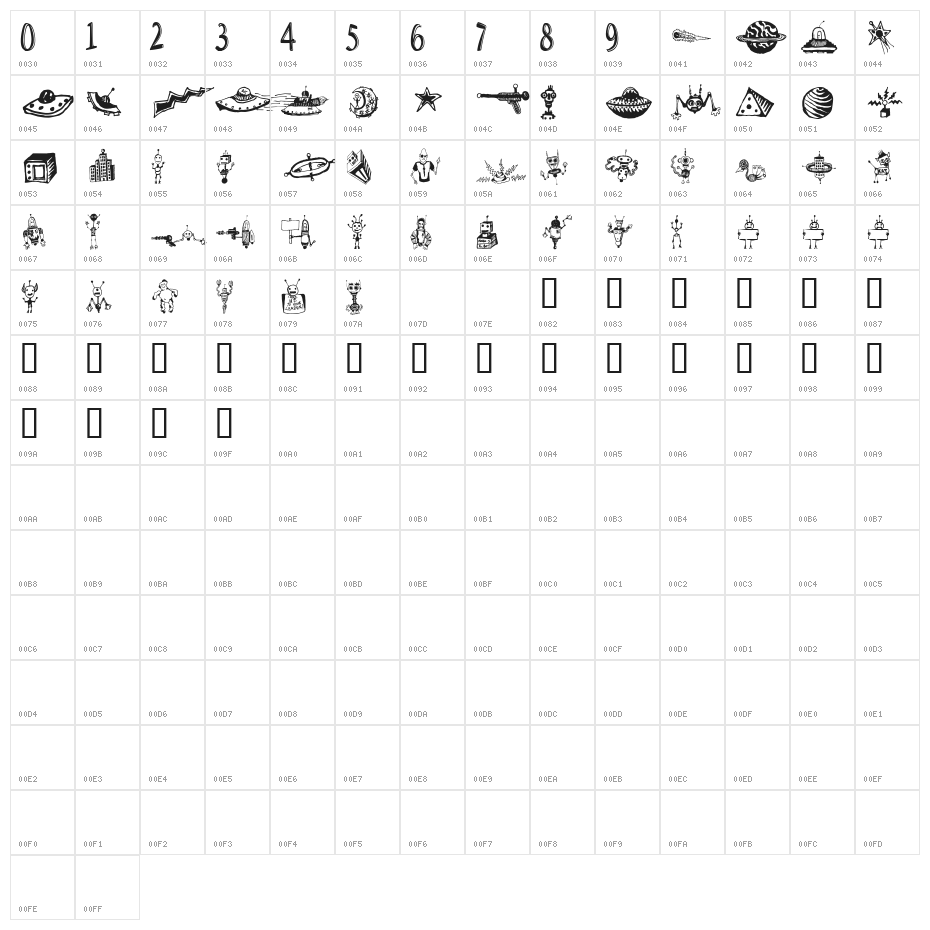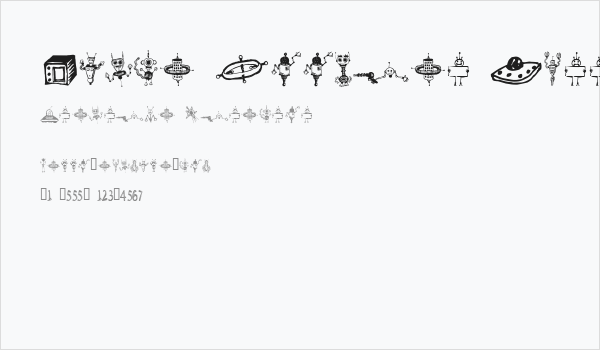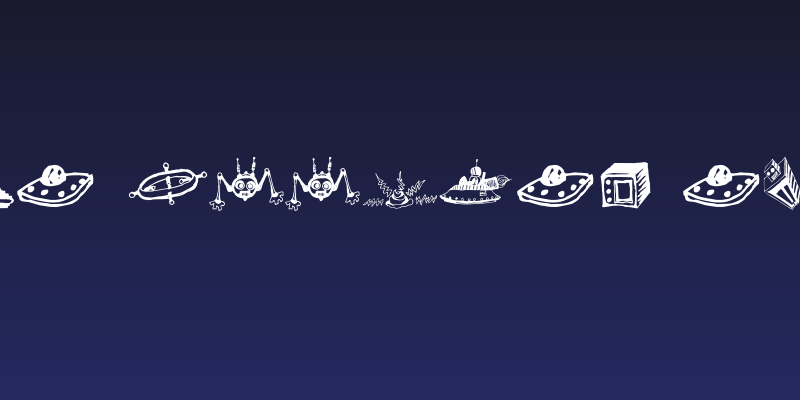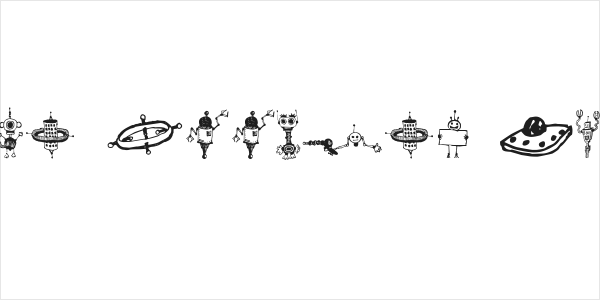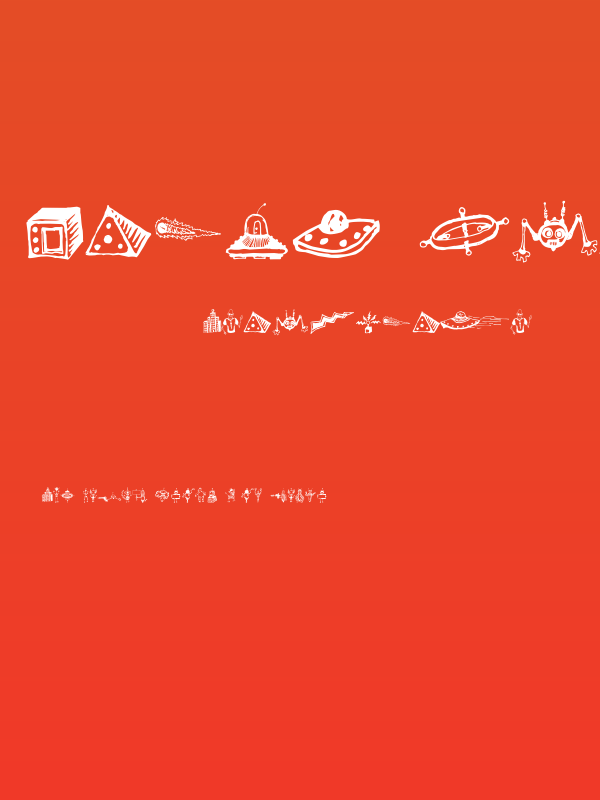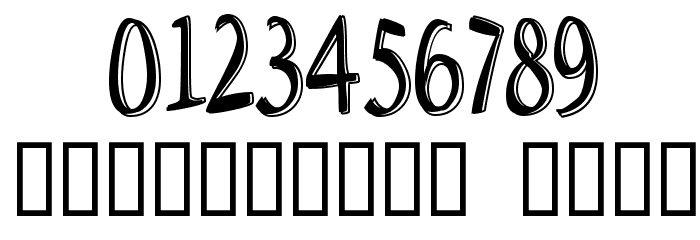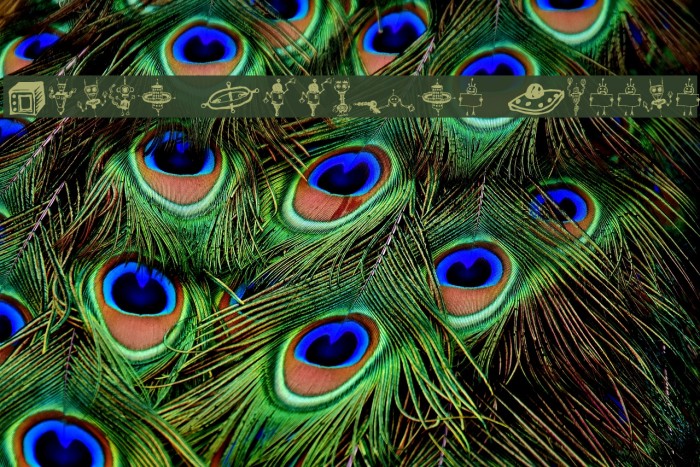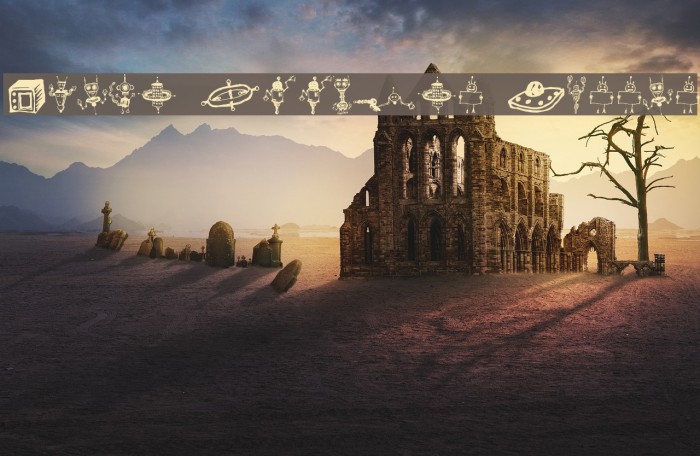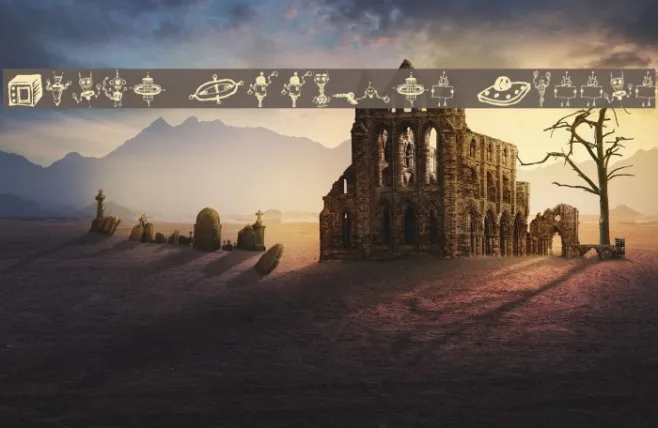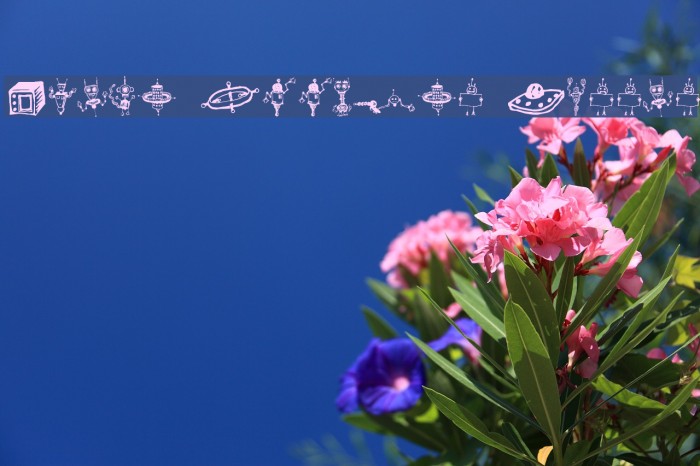
Space Woozies Extras Font
Space Woozies Extras Description
This collection features a whimsical and playful set of space-themed illustrations and characters. The designs include a variety of extraterrestrial elements such as UFOs, aliens, robots, and cosmic objects, each with a unique and quirky style. The numbers are presented in a bold, cartoonish manner, adding to the overall fun and imaginative feel of the set. The characters are detailed with expressive features, making them suitable for creative and lighthearted projects. The illustrations are perfect for adding a touch of humor and creativity to any design, capturing the essence of a playful space adventure.
| Overall Style | Playful, Whimsical, Cartoonish |
| Use Case | Illustrations, Themed designs, Creative projects |
| Proposed Projects | Ideal for children's books, comic strips, educational materials, themed party invitations, or any project requiring a fun, space-themed aesthetic. |